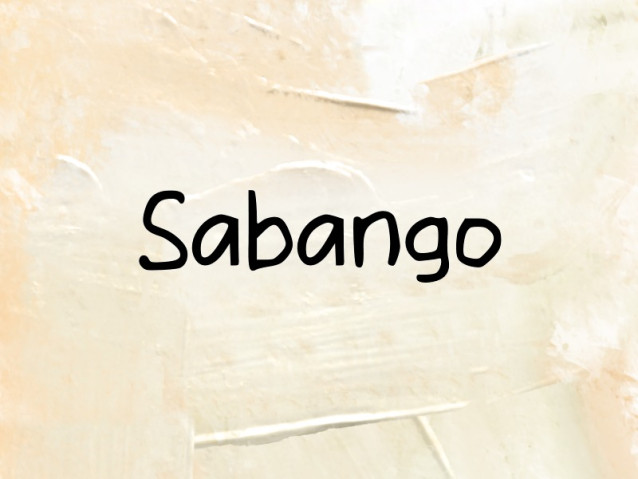
Sabango Font
Sabango Font is a simple and friendly handwritten font. Its natural and unique style makes it incredibly fitting to a large pool of designs. The only limit is your imagination!